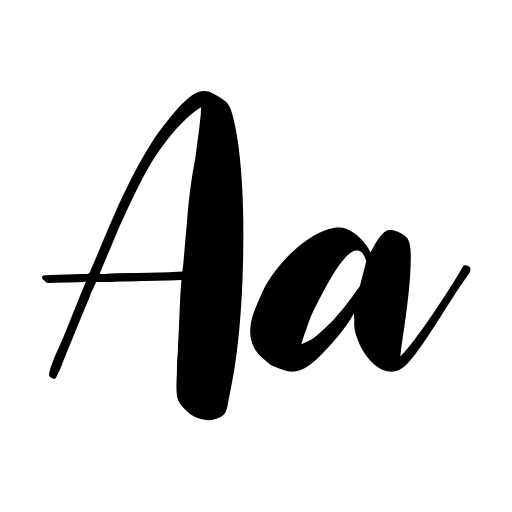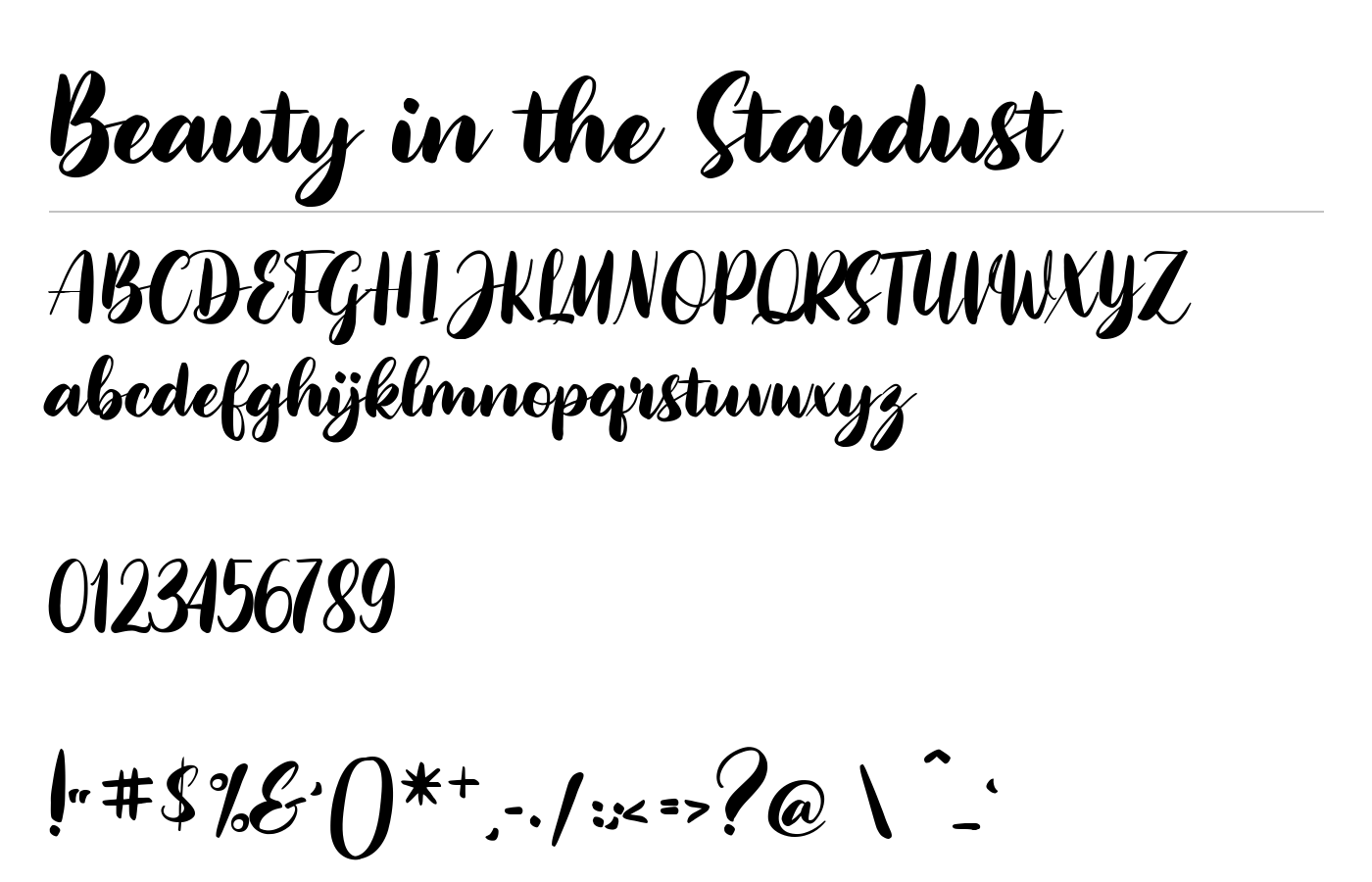
Beauty in the Stardust is an elegant, brush-script font with a lively, hand-lettered feel, featuring smooth, flowing strokes and a natural, casual charm. Its bold, slightly condensed letterforms and dynamic contrast between thick and thin lines make it perfect for adding a touch of warmth and personality to branding, invitations, and creative headlines. This font shines in designs that require a friendly yet sophisticated look, combining modern style with artistic flair.
Beauty in the Stardust Font
About Beauty in the Stardust Font
| Designer | Zialane |